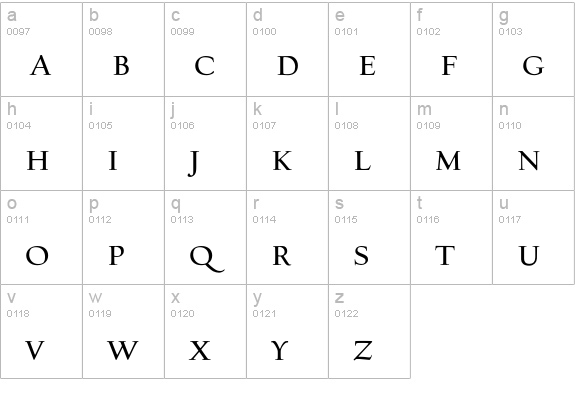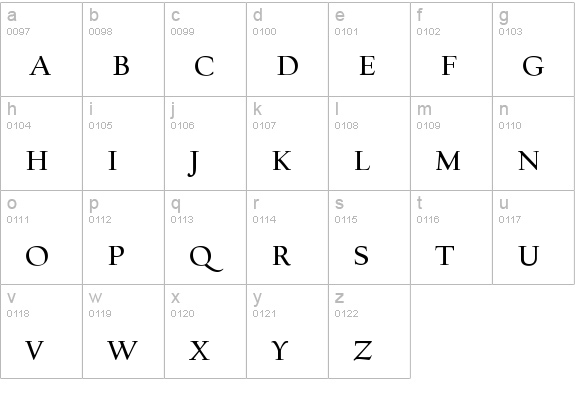
Village-RomanSmallcapsTitling font is a captivating and elegant typeface that exudes a sophisticated charm. With its graceful curves and delicate serifs, it adds a touch of timeless beauty to any design project. This font is perfect for creating eye-catching headlines, titles, and logos. What sets Village-RomanSmallcapsTitling font apart is not only its stunning aesthetics but also its versatility. It seamlessly blends traditional elements with a modern twist, making it suitable for a wide range of applications. Whether you're designing a wedding invitation, a magazine layout, or a stylish brand identity, this font will elevate your design to new heights. One of the standout features of Village-RomanSmallcapsTitling font is its small caps, which add an extra layer of sophistication to your typography. The small caps have been meticulously crafted to ensure perfect harmony with the uppercase and lowercase letters, creating a cohesive and polished look. And the best part? Village-RomanSmallcapsTitling font is available for free download at FontsMarket.com. This means that you can enjoy all the benefits and beauty of this font without breaking the bank. It's a fantastic opportunity to enhance your design projects with a high-quality and visually stunning font, without any cost. So why wait? Head over to FontsMarket.com and download Village-RomanSmallcapsTitling font today. Unleash your creativity and let this font be your secret weapon for creating captivating and memorable designs.